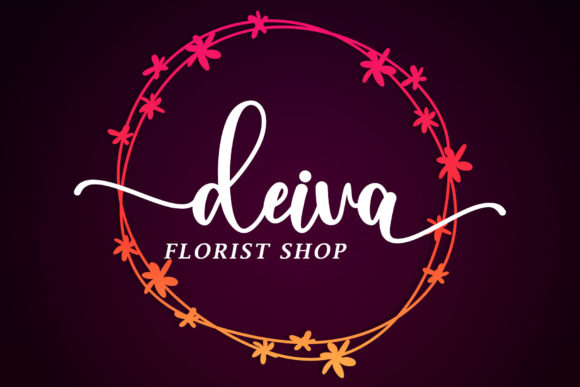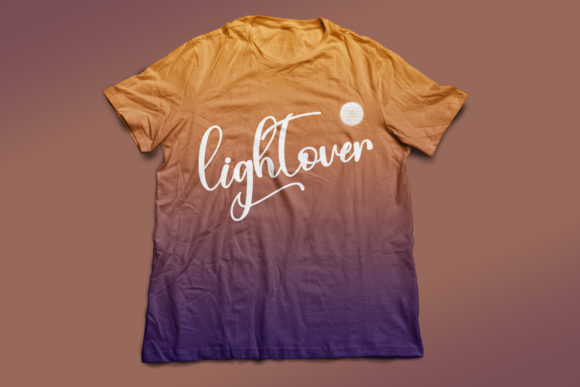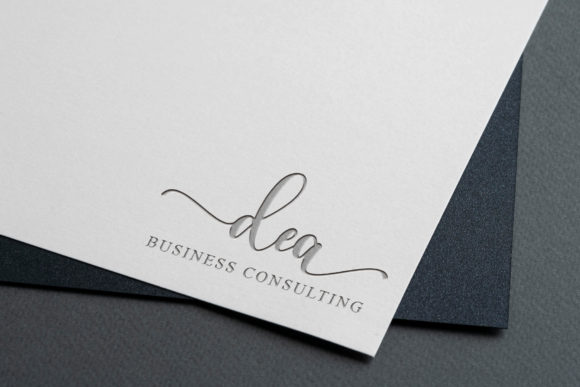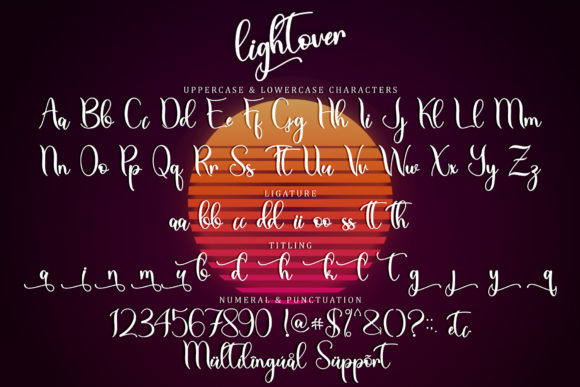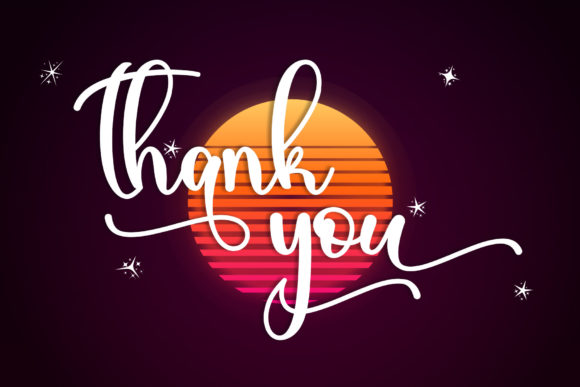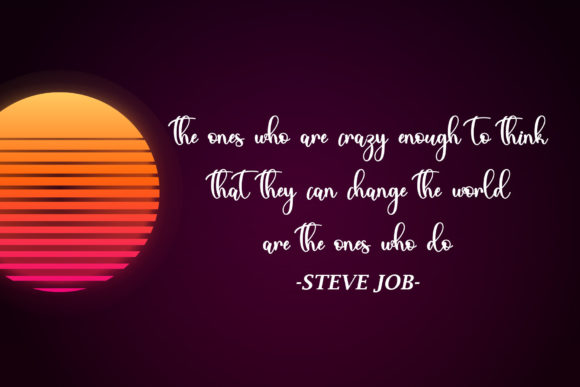
About Lightover Font
Lightover is a modern handwritten font. Lightover will look outstanding in any context, whether it’s being used on busy backgrounds or as a standalone headline!